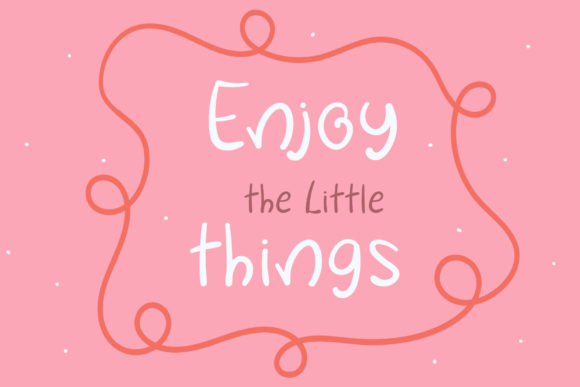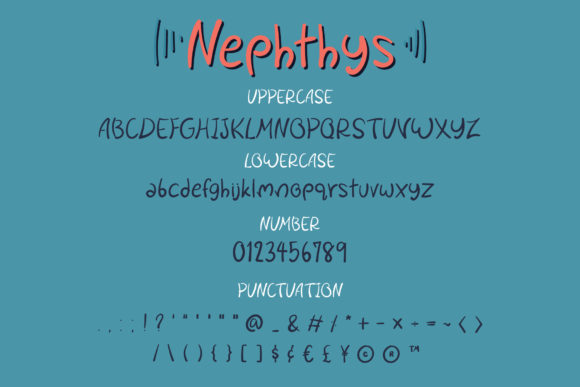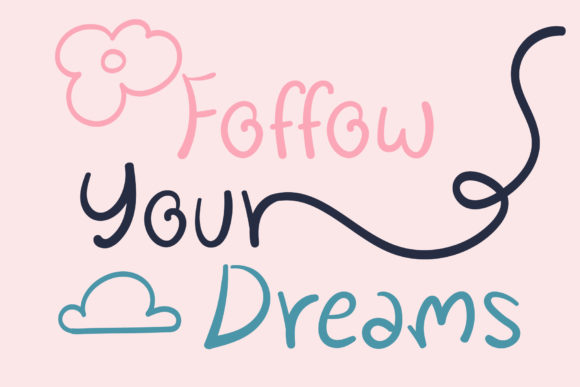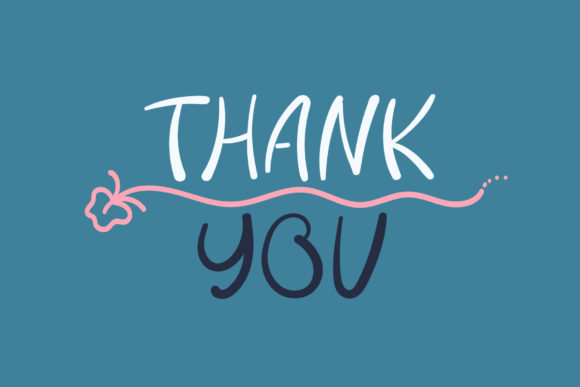
Introduction to Nephthys Font
As you sit at your desk, surrounded by papers, pens, and a multitude of design ideas, you suddenly stumble upon that one spark that ignites your creative fire. You envision a beautiful, handwritten design that perfectly captures the essence of your latest project. But, what font can bring this vision to life?
Enter the Nephthys Font, a stunning, high-quality script font that is sure to elevate any creative project. Whether you’re designing a social media post, a wedding invitation, or a DIY craft, this versatile font is the perfect design resource to help you achieve your artistic goals.
Not only is the Nephthys Font free to download, but it also boasts a transparent background, making it an ideal choice for designers who value simplicity and flexibility. With its unique, handwritten style, this font is sure to add a touch of elegance and sophistication to any design, making it a valuable addition to any designer’s toolkit.
- Unique characteristics: A beautiful, elegant script font perfect for adding a touch of sophistication to any design project.
- Perfect for use in creative projects such as logos, branding, invitations, and more.
One thing that stands out about the Nephthys Font is its high quality design. The font is crisp and clean, making it perfect for a variety of design applications.
- ✨ A wide range of glyph support, including international characters and symbols
However, there are a few limitations to the Nephthys Font. ⚠️ The font is only available in a single weight, which may limit its versatility in certain design applications.
Overall, I’m impressed with the Nephthys Font. It’s a great design resource that’s perfect for designers looking for a high-quality font for their next creative project. While it may not be perfect, it’s a great addition to any designer’s toolkit.
Nephthys Font is suitable for various design projects, including logos, typography, presentations, and documents. It’s also a great resource for designers working on creative projects, such as infographics, brochures, and posters.